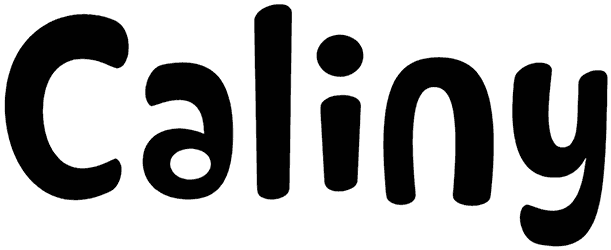
Caliny Font
If you are looking for an awesome, fancy font to entertain your viewers, Caliny is an appropriate suggestion. This baby font has a cute style and grabs the attention at first sight.
You may use the Caliny font in various situations, such as cartoons, animations, and applications; however, it does not support symbols. This font feels funny and has bold letters. Besides, they have soft edges with a curvy shape that seems memorable to your audience.